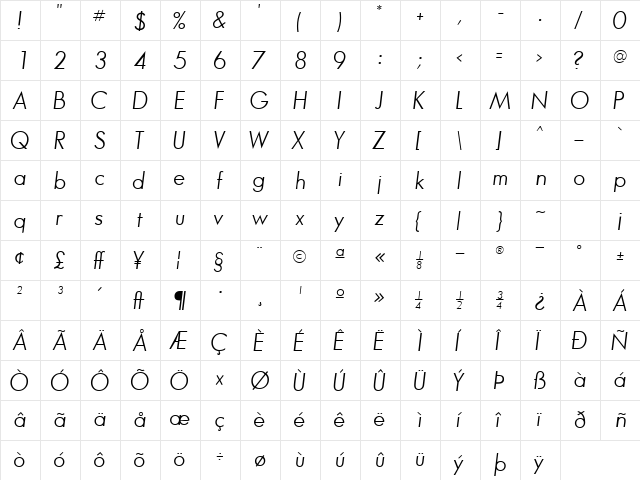
BouganBookSSK Italic
Design Context for BouganBookSSK Typeface
BouganBookSSK is a composed and adaptable typeface that performs quietly and consistently across a wide range of design contexts. Its italic angle brings a sense of urgency and motion to the letterforms.
Pro Tip: Try BouganBookSSK for annotation and caption copy alongside an upright companion — the contrast in angle creates a dynamic but ordered typographic system.